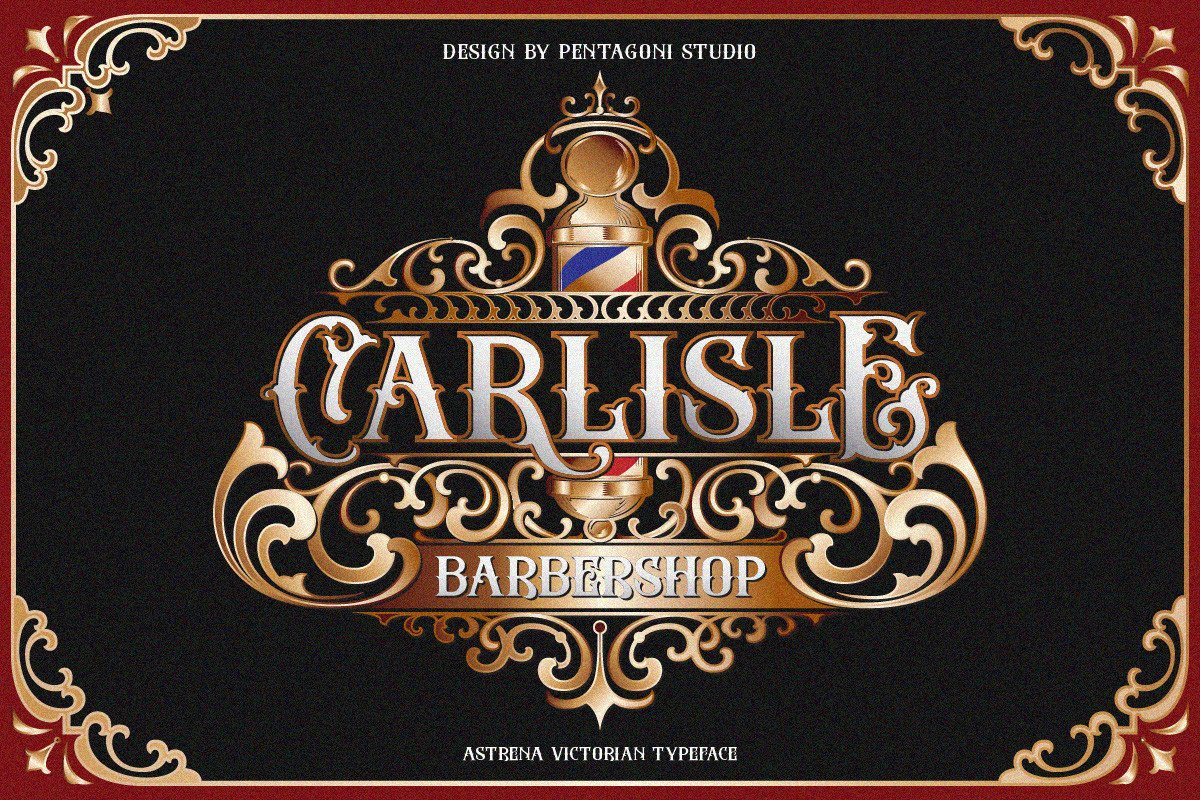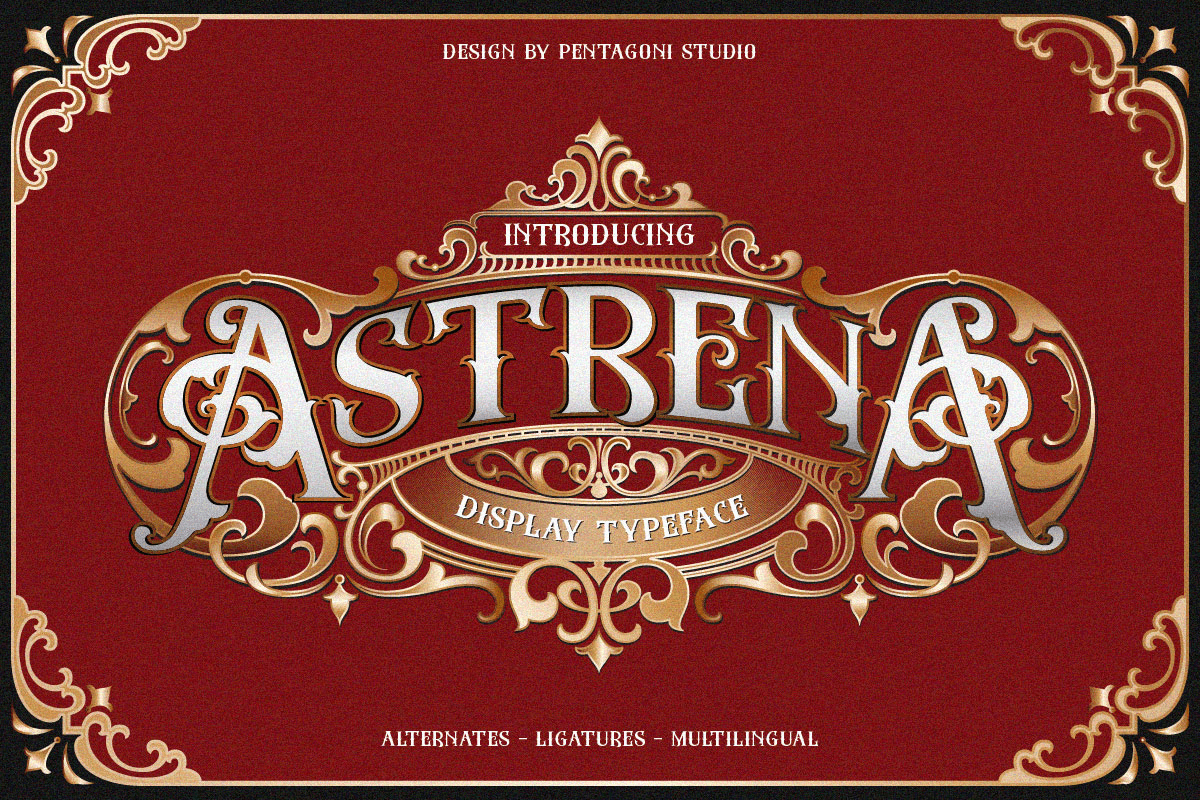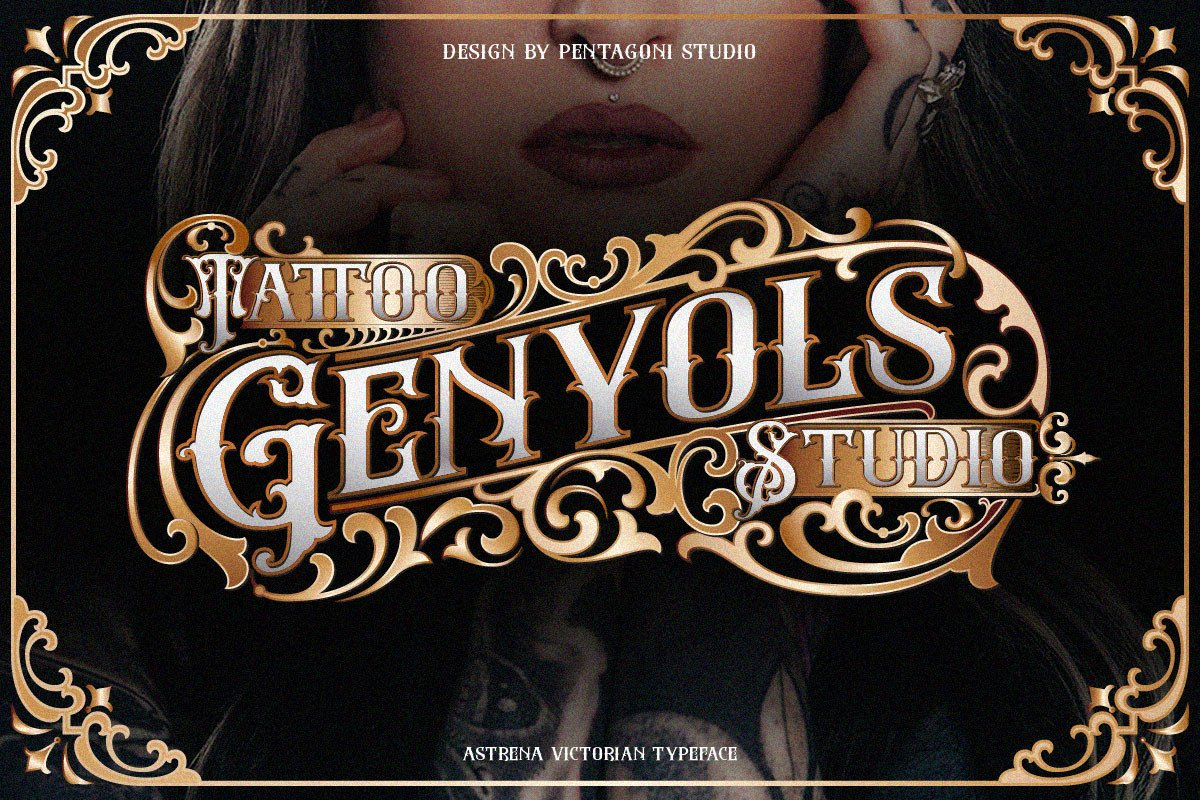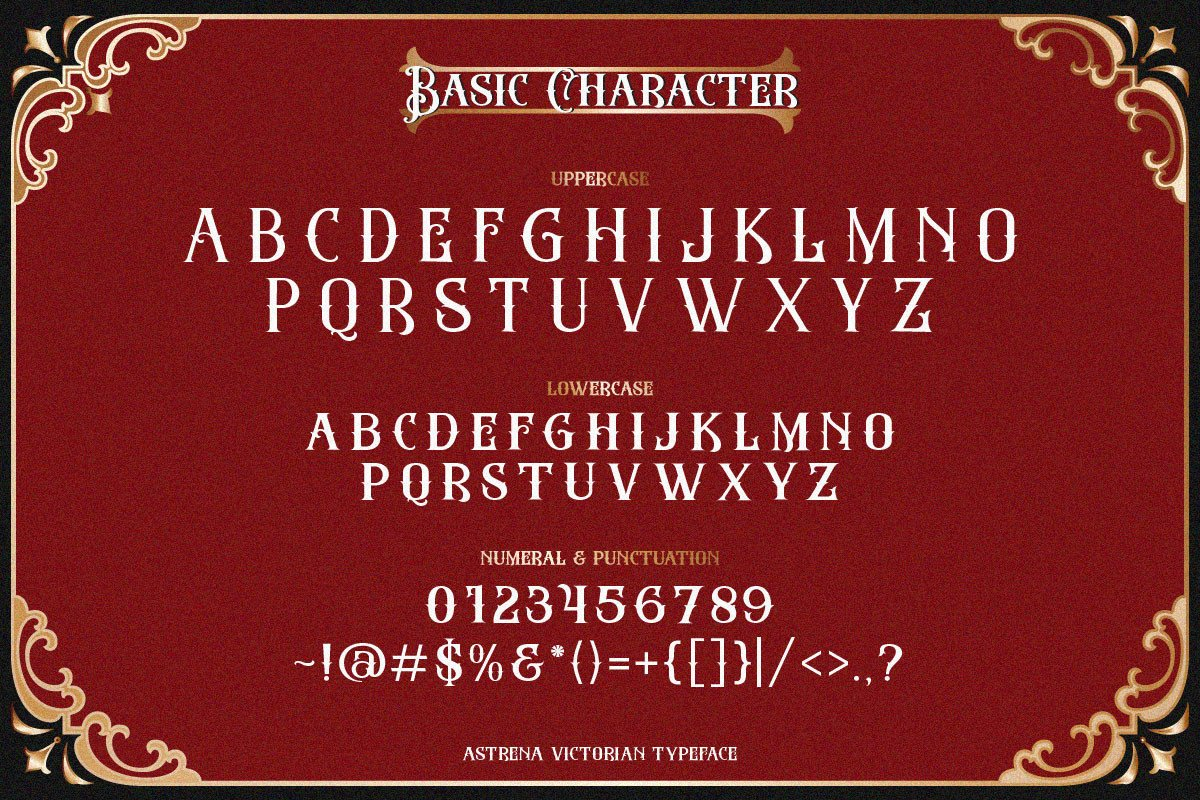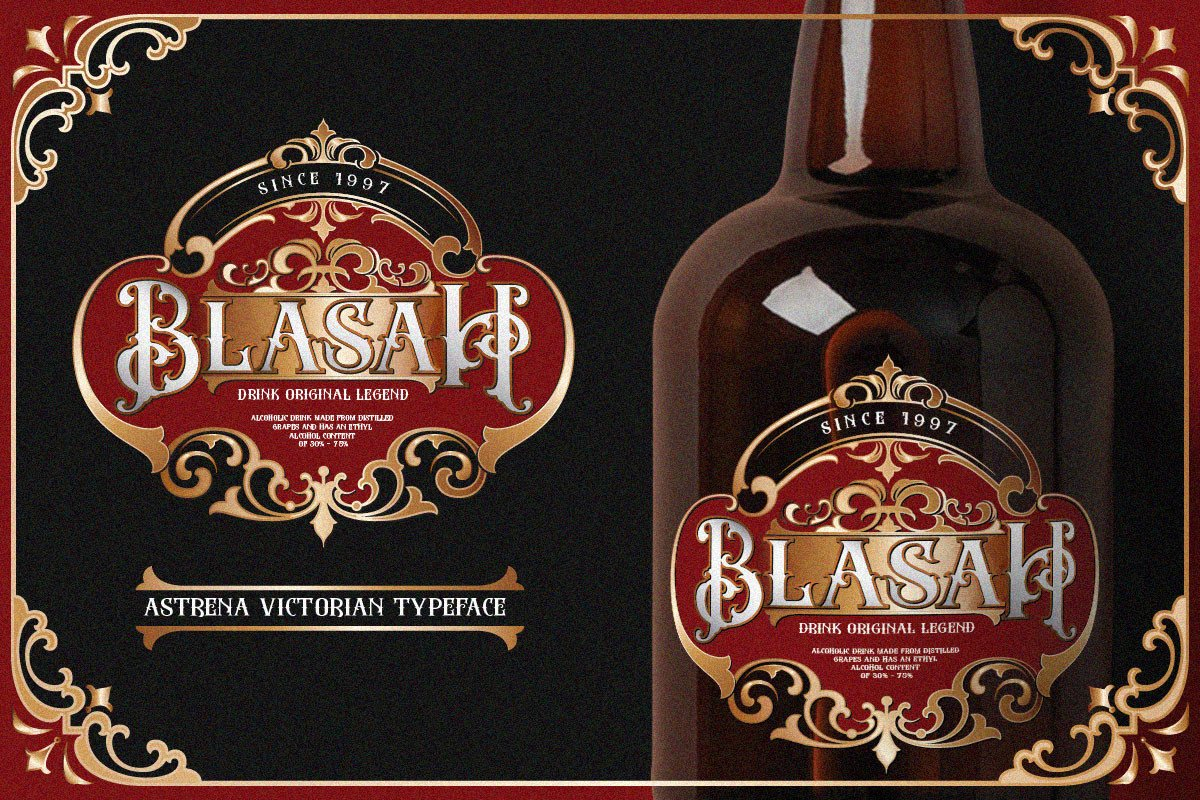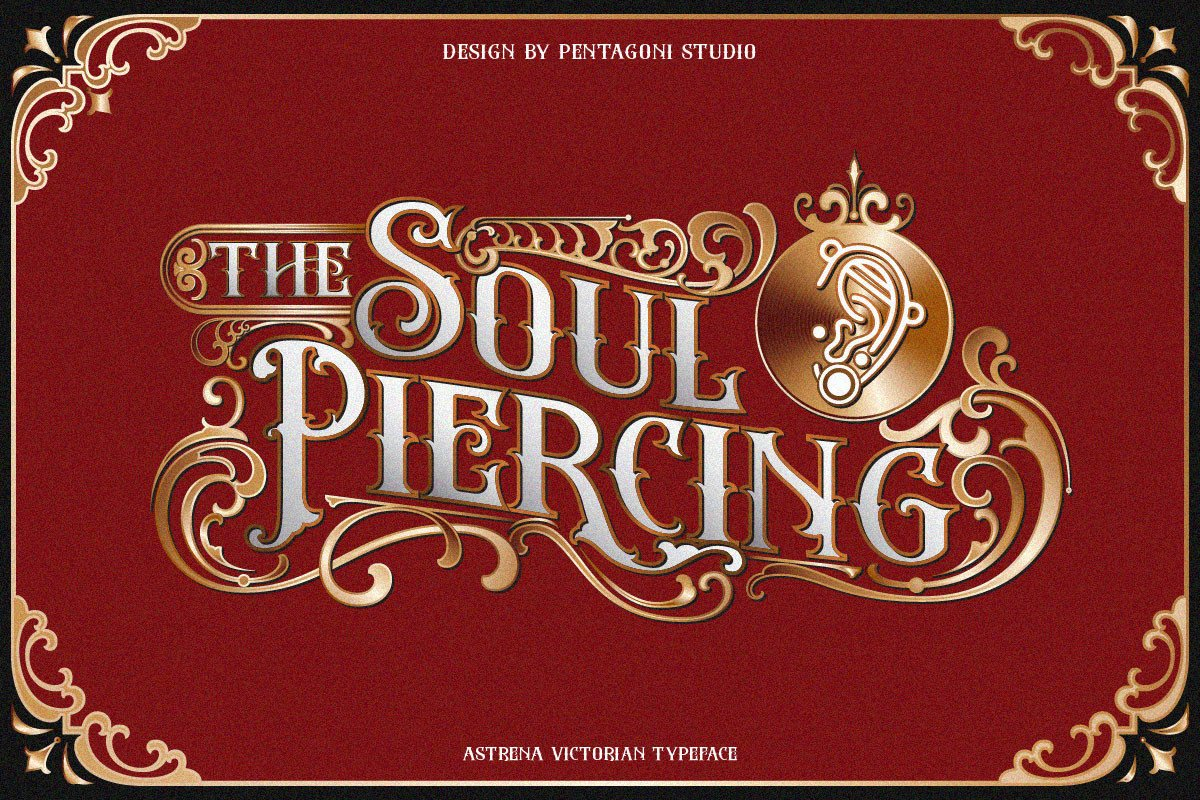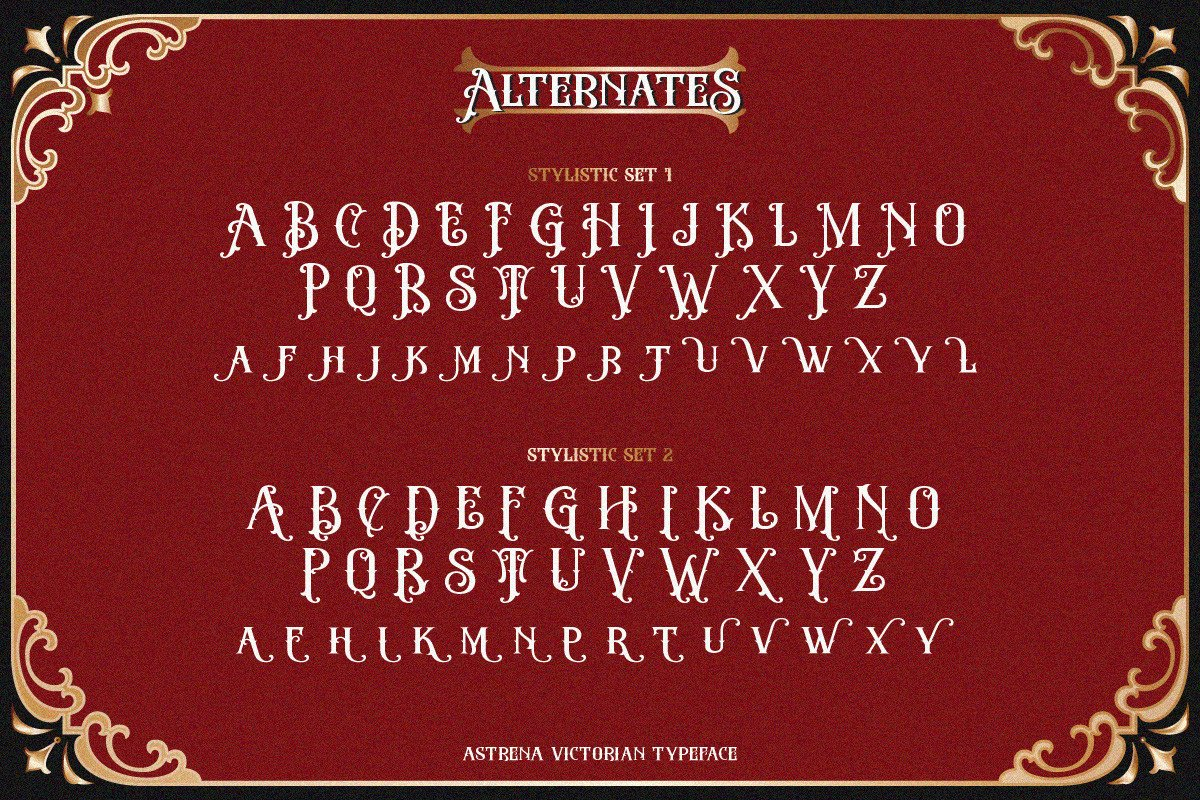
Astrena Font
About Astrena Font
Astrena is a splendid, Victorian-era-inspired blackletter font. With its incredibly stylish and elegant features, this font is perfect for any design that requires bold and daring typography.